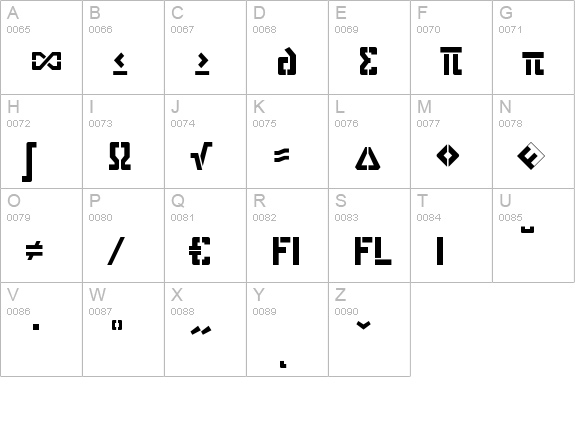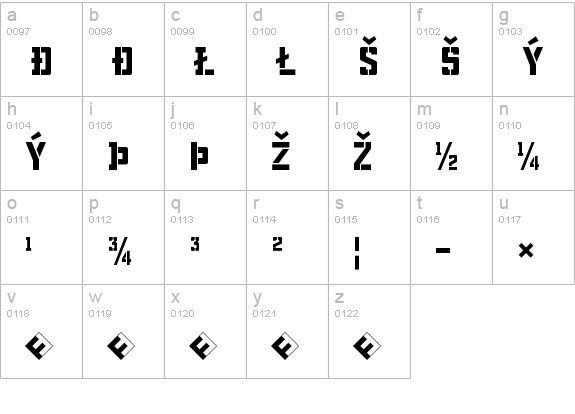
WaterTower-CapitalsExpert Font Details
WaterTower-CapitalsExpert is a stunning and versatile font that exudes elegance and sophistication. It is the perfect choice for adding a touch of class to any design project, whether it be a logo, branding materials, or even a wedding invitation. This font features beautifully crafted capital letters that are meticulously designed to captivate and impress. Each letter has been expertly crafted to maintain a harmonious balance between its curves and straight lines, resulting in a truly unique and eye-catching typeface. WaterTower-CapitalsExpert offers a wide range of character variations, allowing you to create a personalized and distinctive look. From bold and commanding to delicate and refined, this font has it all. Its versatility makes it suitable for a variety of design styles, from modern and minimalist to traditional and ornate. One of the best features of WaterTower-CapitalsExpert is that it is completely free. Yes, you read that right – this exceptional font is freely available to download at FontsMarket.com. Now, you can enjoy the beauty and sophistication of WaterTower-CapitalsExpert without any cost or restrictions. So, whether you're a professional designer looking to enhance your portfolio or a casual user in need of a font to elevate your personal projects, WaterTower-CapitalsExpert is the perfect choice. Download it today from FontsMarket.com and let your creativity soar.